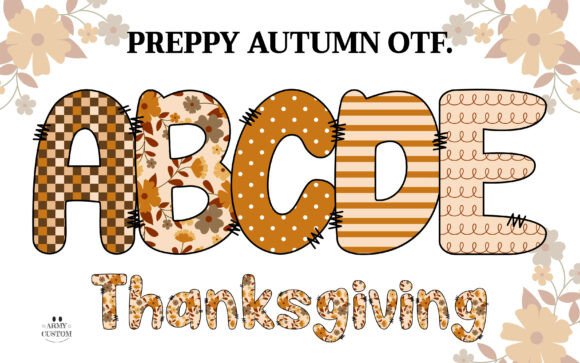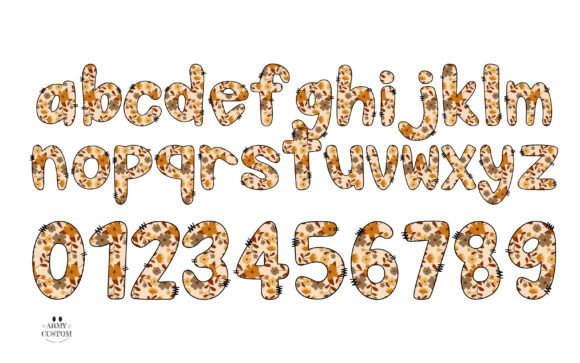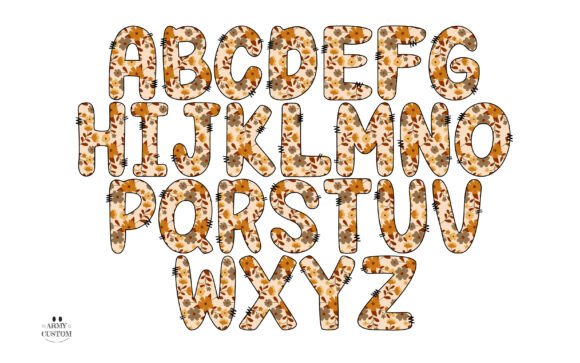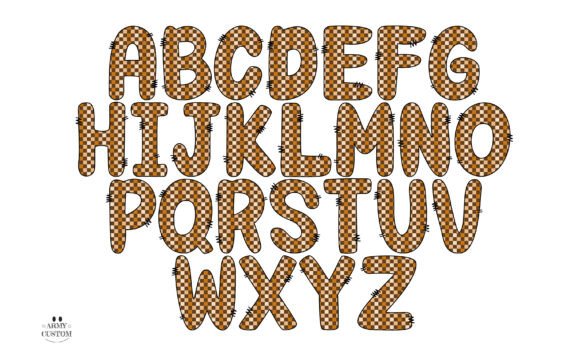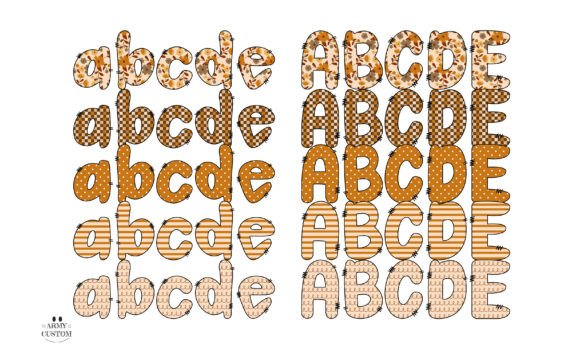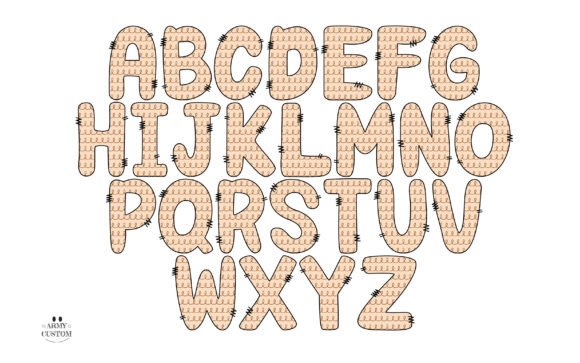
Preppyfall3 Checkered Font
Preppy Autumn – Patchwork-Inspired Color Font for Fall Designs
Preppy Autumn is a playful and cozy color font that captures the warmth and charm of the fall season. Each letter is designed with a unique patchwork effect, featuring patterns like florals, polka dots, plaid, and hand-drawn stitching. With its handcrafted look and rich autumn palette, this OpenType-SVG font is perfect for Thanksgiving crafts, seasonal quotes, greeting cards, classroom materials, and DIY design projects.